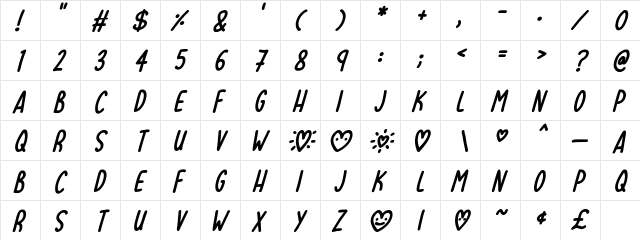
Lovehearts XYZ Italic
Design Context for Lovehearts XYZ Typeface
Lovehearts XYZ is a composed and adaptable typeface that performs quietly and consistently across a wide range of design contexts. The dynamic lean of this cut emphasises speed and emphasis in any layout.
Pro Tip: Try Lovehearts XYZ for annotation and caption copy alongside an upright companion — the contrast in angle creates a dynamic but ordered typographic system.